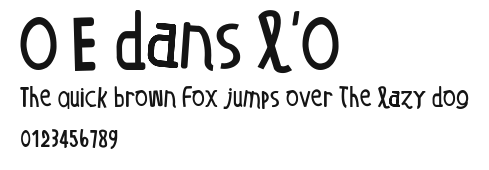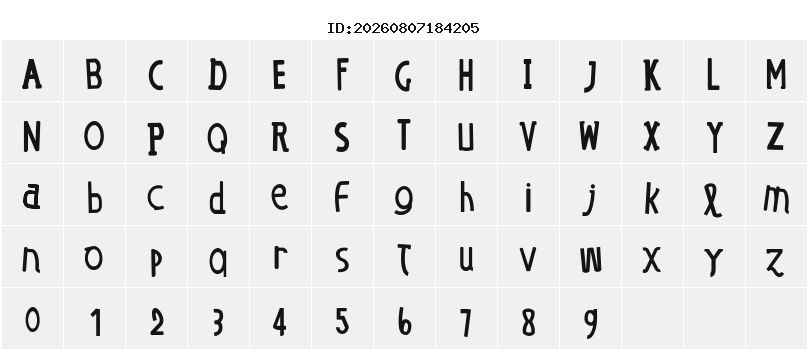
• Font Name: O E dans l'O
• Full Font Name: O E dans l'O
About O E dans l'O.ttf
O E dans l'O.ttf is a modern, elegant sans-serif font designed for ultimate readability and visual harmony. Perfect for branding, headlines, web design, and print materials.